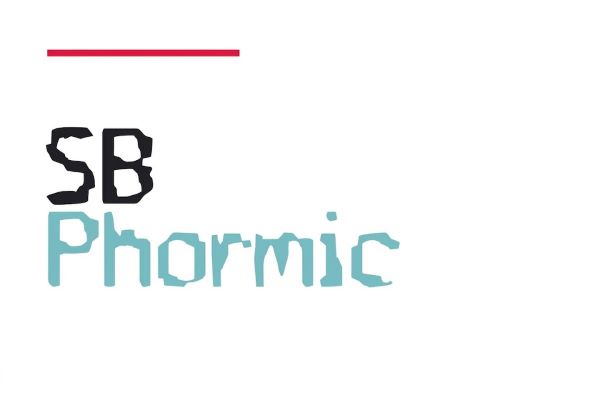
SB Phormic Font
SB Phormic Font is a Glitch Font by SelfBuild Type Foundry with a uniquely hybrid DNA — interpolated from two distinct typefaces to create something distressed, mechanical, and strangely compelling. Its letterforms carry the look of damaged electronics and corroded machinery, like text pulled from a broken fax machine or the remnants of decaying industrial technology.